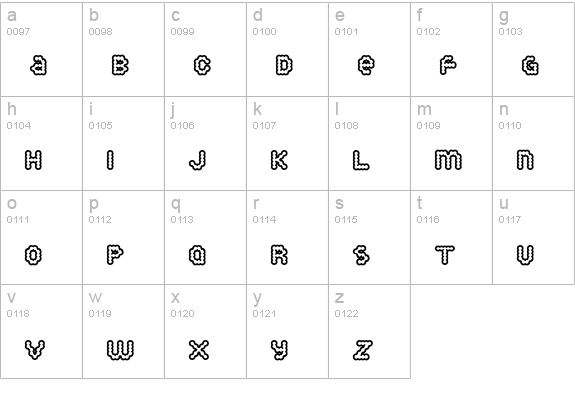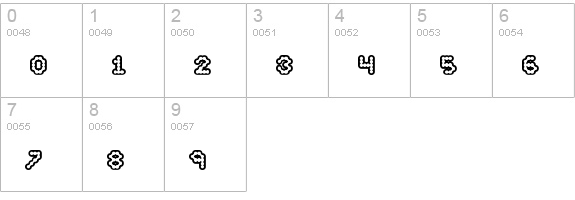
PuffyDreamland Font Details
PuffyDreamland font is a whimsical and playful typeface that will transport you to a world of imagination and creativity. Its soft, rounded edges give off a dreamy and ethereal vibe, making it perfect for projects that require a touch of magic and wonder. This delightful font is freely available to download at FontsMarket.com, making it accessible to anyone looking to add a touch of charm to their designs. Whether you're working on a children's book, a greeting card, or a branding project, PuffyDreamland font is sure to make your text stand out and bring a smile to your audience's face. Let your creativity soar with PuffyDreamland font and bring a touch of whimsy to your next project!